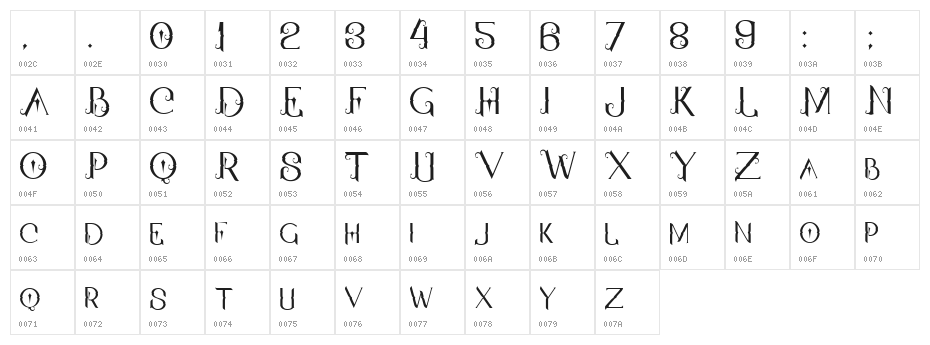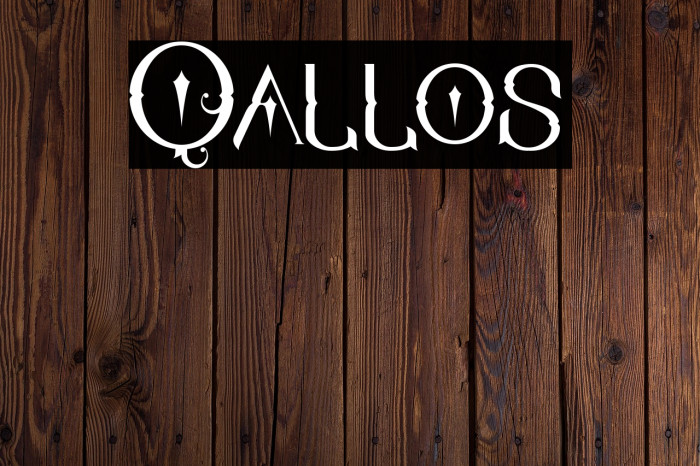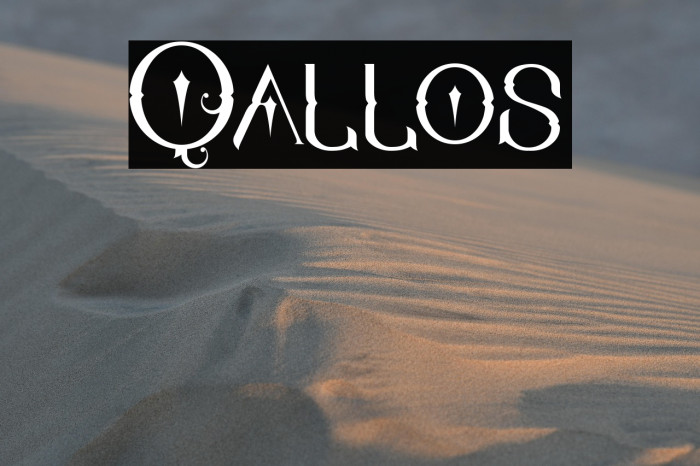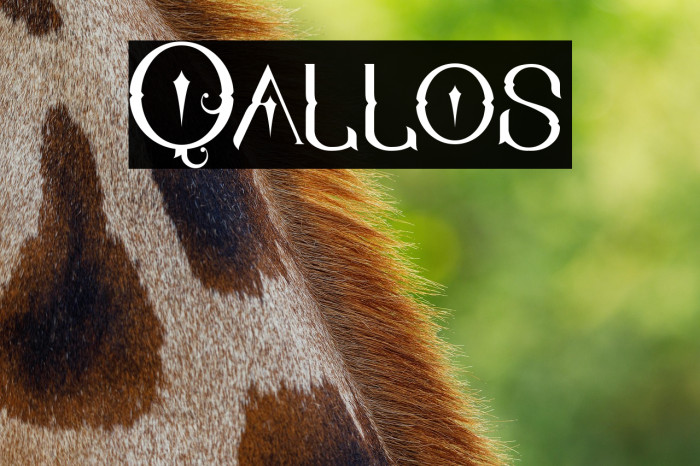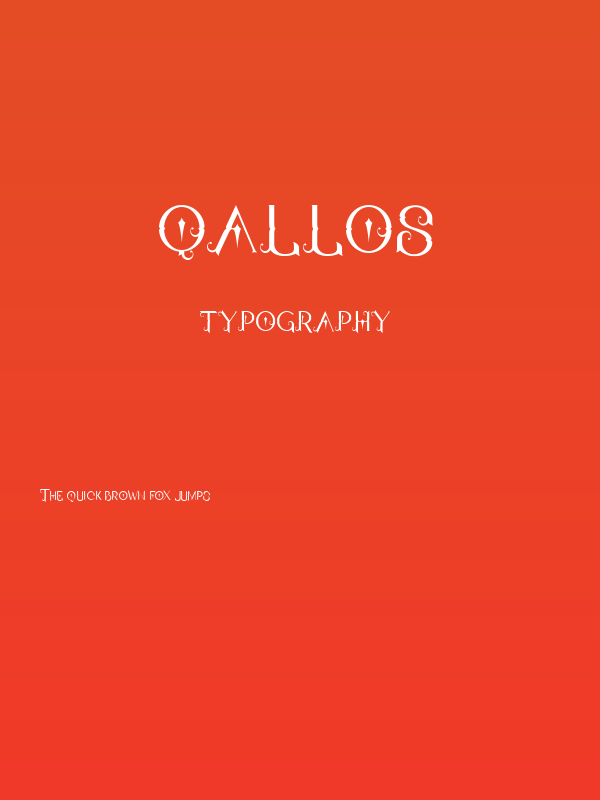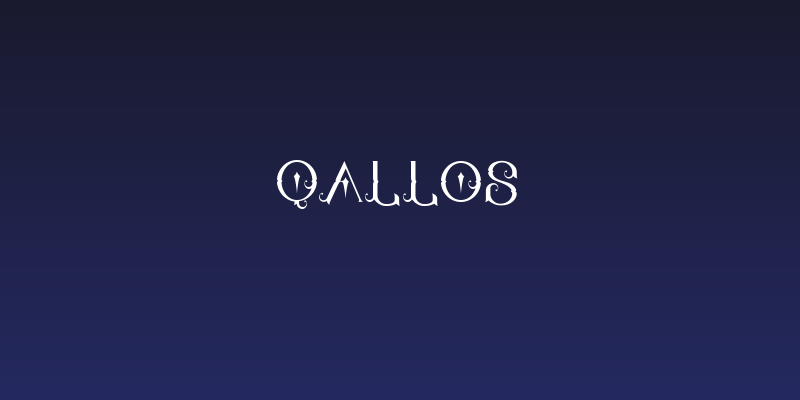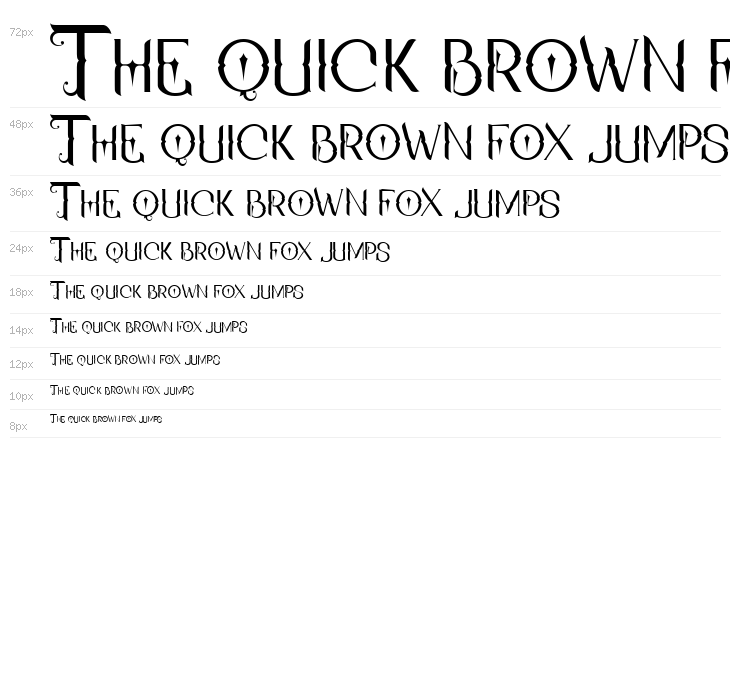
Qallos Font
Qallos Description
This font is a decorative typeface that combines elegance with a touch of whimsy. Each character is adorned with intricate swirls and flourishes, giving it a unique and artistic appearance. The uppercase letters are particularly ornate, featuring elaborate embellishments that extend from the main strokes. The lowercase letters maintain a more restrained design but still carry subtle decorative elements. The numerals are consistent with the overall style, incorporating similar flourishes. This font is ideal for projects that require a distinctive and eye-catching look, such as invitations, posters, or branding materials.